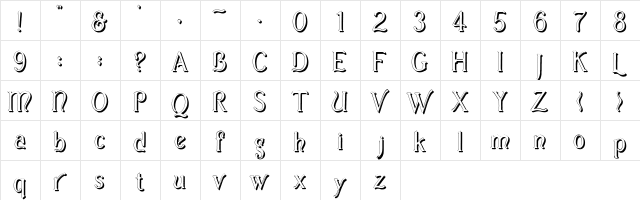
Casua_Shadow Regular
Design Context for Casua_Shadow Typeface
Casua_Shadow brings ornamental detail and strong personality to headlines and identities, where visual impact matters more than quiet functionality.
Font Pairing: Pair with a clean neutral sans-serif for body copy to let Casua_Shadow's character lead without overwhelming the composition.
Pro Tip: Treat Casua_Shadow as the centrepiece of your typographic hierarchy. One strong heading set in a decorative face can carry an entire layout.